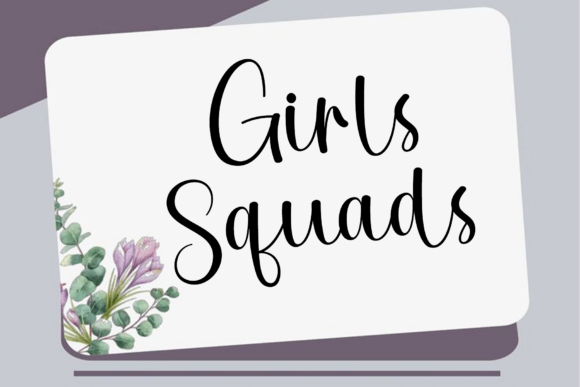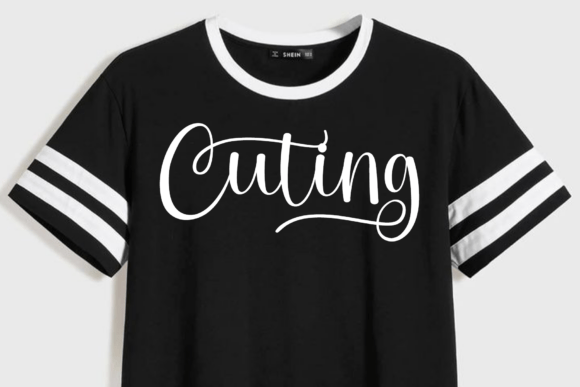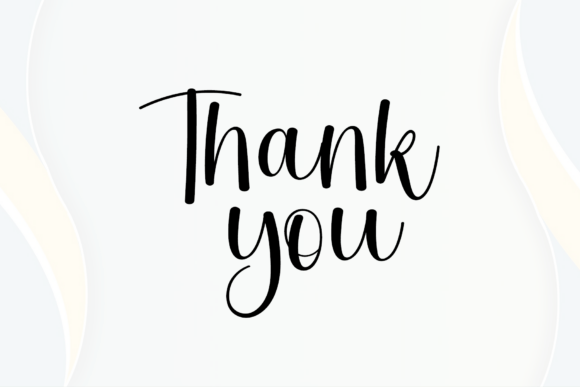
Unleash the Power of Adventure with Casting Font
Are you looking for a font that embodies the spirit of adventure and makes a lasting impact? Look no further than Casting, a high-contrast calligraphy script that exudes confidence and sophistication. Designed to make a statement, Casting is the perfect choice for projects that require a bold, established, and personal touch.
The Essence of Casting Font
Casting is a dramatic and elegant calligraphy script that features sweeping swashes and a rhythmic, upright flow. Its sharp terminals and lyrical loops create a visual “staccato” effect that adds to its dynamic and adventurous feel. This font is designed to mimic the confidence of a professional signature, making it ideal for projects that require a personal touch.
Key Features of Casting Font
- High-contrast calligraphy script: Casting features dramatic contrasts between thick and thin lines, creating a sense of elegance and sophistication.
- Dramatic swashes: The font’s sweeping swashes add a touch of drama and flair to any design.
- Rhythmic, upright flow: Casting’s rhythmic flow creates a sense of movement and energy, making it perfect for projects that require a dynamic feel.
- Sharp terminals: The font’s sharp terminals add a touch of precision and elegance to any design.
- Lyrical loops: Casting’s lyrical loops create a visual “staccato” effect that adds to its dynamic and adventurous feel.
Best Use Cases for Casting Font
Casting is a versatile font that can be used in a variety of projects, including:
- Adventure and outdoor branding: Casting’s adventurous and bold feel makes it perfect for branding projects that require a sense of excitement and exploration.
- Cinematic titles: The font’s dramatic swashes and elegant flow make it ideal for cinematic titles that require a touch of sophistication and glamour.
- Professional signatures: Casting’s confident and elegant feel makes it perfect for professional signatures that require a personal touch.
- Upscale product labels: The font’s bold and established feel makes it ideal for upscale product labels that require a sense of luxury and sophistication.
Why Choose Casting Font?
Casting is a unique and versatile font that offers a range of benefits, including:
- Instant recognition: Casting’s bold and dramatic feel makes it instantly recognizable, even at small sizes.
- Emotional connection: The font’s elegant and adventurous feel creates an emotional connection with the viewer, making it perfect for projects that require a personal touch.
- Flexibility: Casting can be used in a variety of projects, from branding and advertising to packaging and editorial design.
- High-quality design: Casting is designed to the highest standards, ensuring that it will look great in any project.
Tips for Using Casting Font
To get the most out of Casting, here are a few tips to keep in mind:
- Use it sparingly: Casting is a bold font, so use it sparingly to avoid overwhelming the viewer.
- Experiment with swashes: The font’s dramatic swashes can add a touch of drama and flair to any design.
- Pair it with contrasting fonts: Casting pairs well with contrasting fonts, such as sans serifs or serifs.
- Pay attention to kerning: Make sure to pay attention to kerning to ensure that the font looks great in any project.
Casting is a powerful and elegant font that embodies the spirit of adventure and makes a lasting impact. With its dramatic swashes, rhythmic flow, and sharp terminals, Casting is the perfect choice for projects that require a bold, established, and personal touch. Whether you’re working on a branding project, cinematic title, or upscale product label, Casting is the perfect font to help you make a statement.